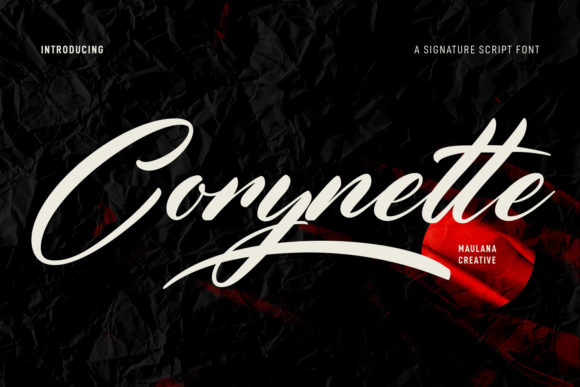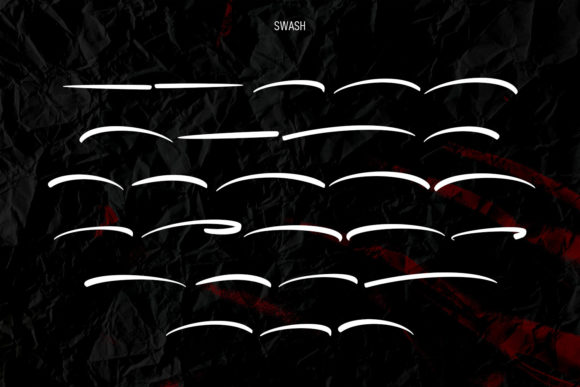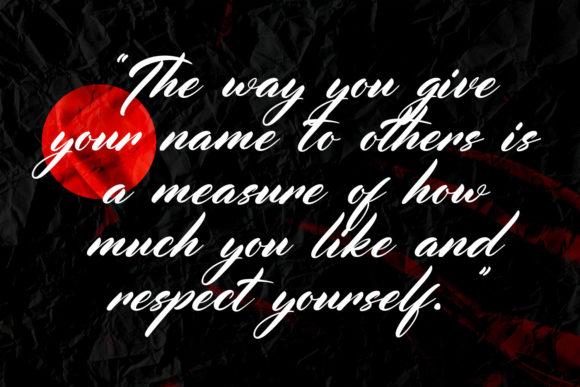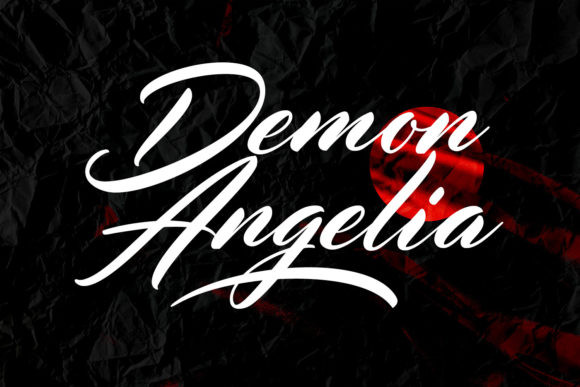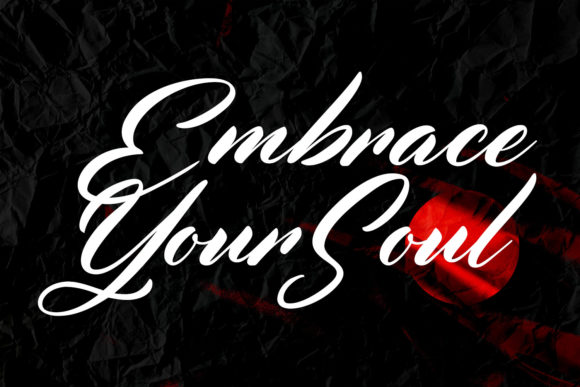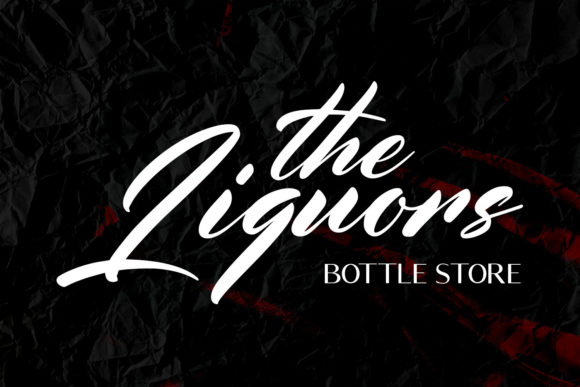
Corynette Font
About Corynette Font
Corynette is a fancy script font. It features medium contrast strokes, fun characters, a bit of ligatures and alternates. It will look outstanding in a wide range of contexts.